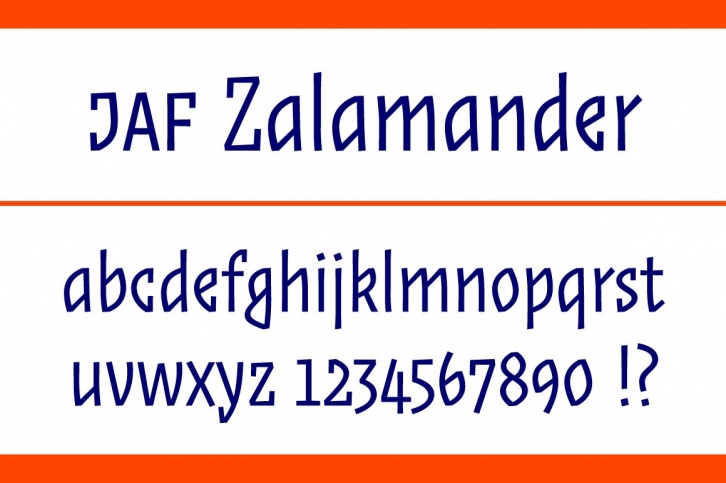
Design: Tim Ahrens, 2004
BlackÂletÂter, GrafÂfiti, ConstructÂivÂism, Art Deco, Hip Hop – all these influÂences are combined into a lively and dynamic typeface: JAF ZalaÂmanÂder. BlackÂletÂter faces don’t look great when used for all-caps text, but JAF ZalaÂmanÂder fixes that probÂlem. The family includes special Caps versions, containÂing variÂations of each letter that combine nicely in upperÂcase words. These forms are availÂable as alternÂates in the full fonts.